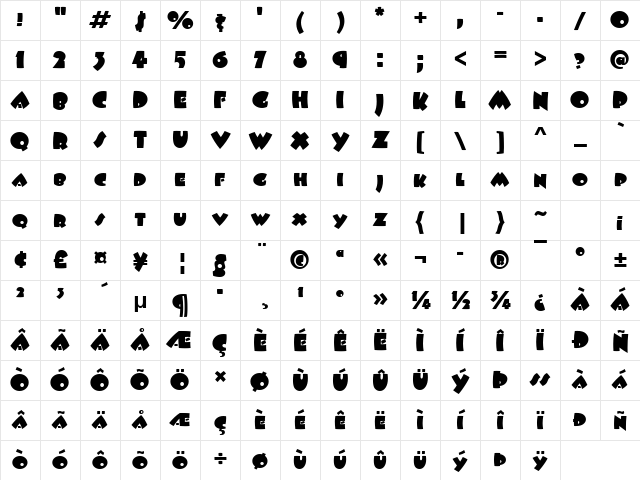
Beesknees ITC Regular
Design Context for Beesknees ITC
Beesknees ITC is a composed and adaptable typeface that performs quietly and consistently across a wide range of design contexts.
Pro Tip: Use Beesknees ITC in both headline and body roles to test its range before committing to a single application.